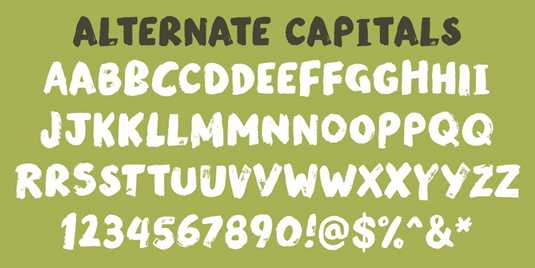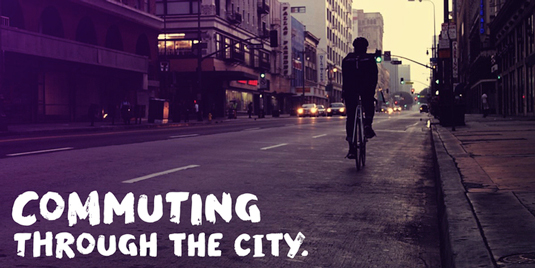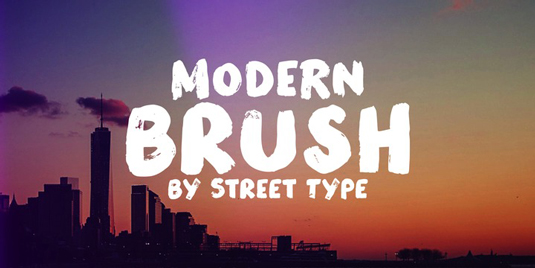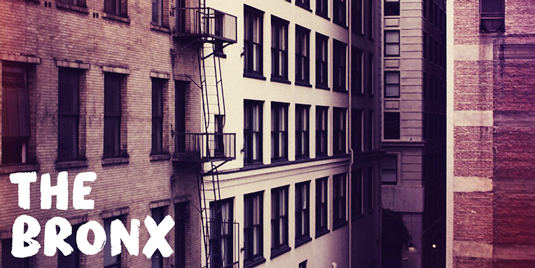
Font of the day: Modern Brush
Every day we showcase the best fonts on the web. Today it's Modern Brush from Street Type.
Modern Brush from Street Type
Today's typeface of choice is hand painted brush font Modern Brush, from the team at font foundry Street Type. A bold design, Modern Brush is great for creating eye-catching posters, t-shirts, magazines and more.